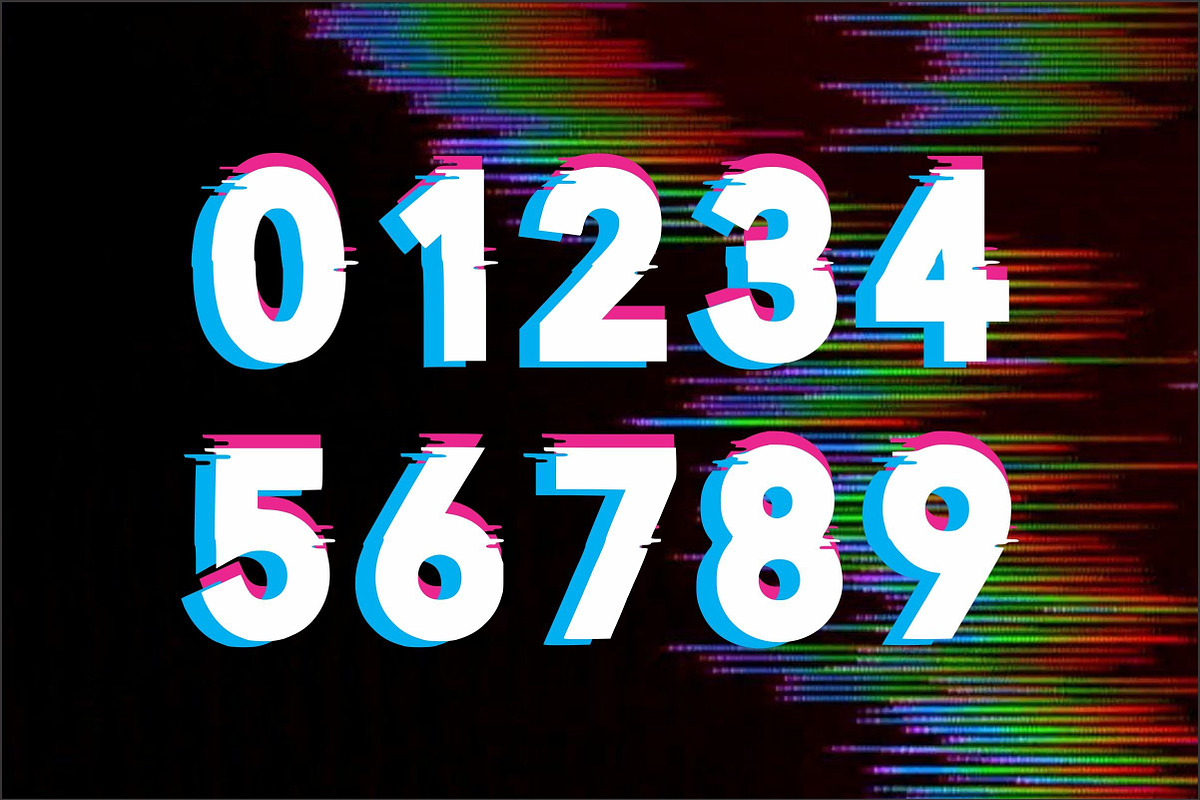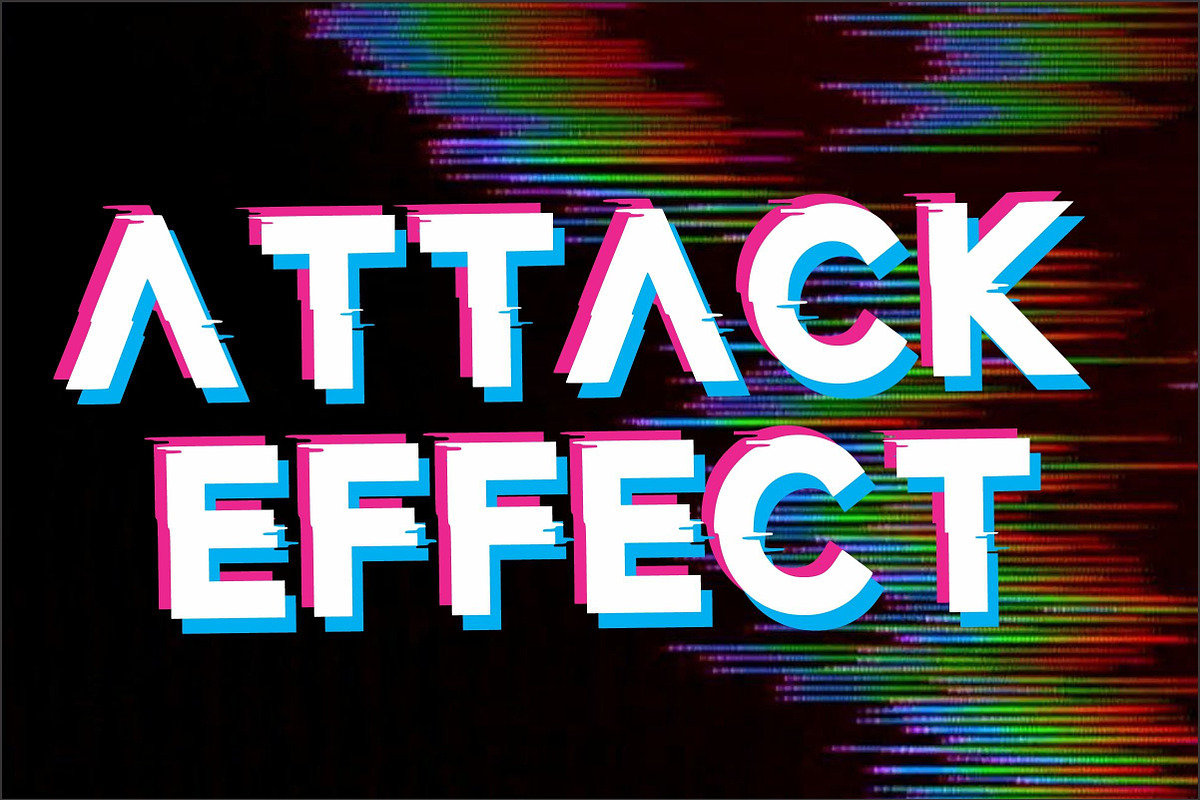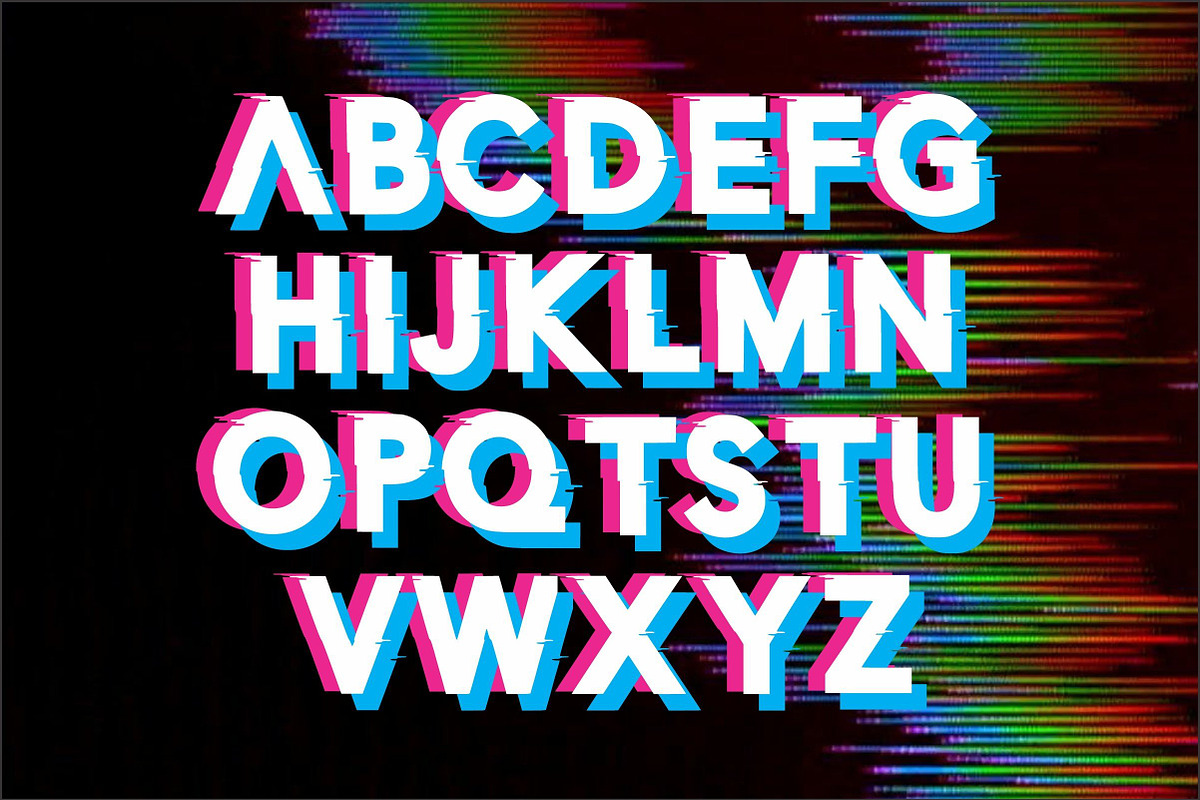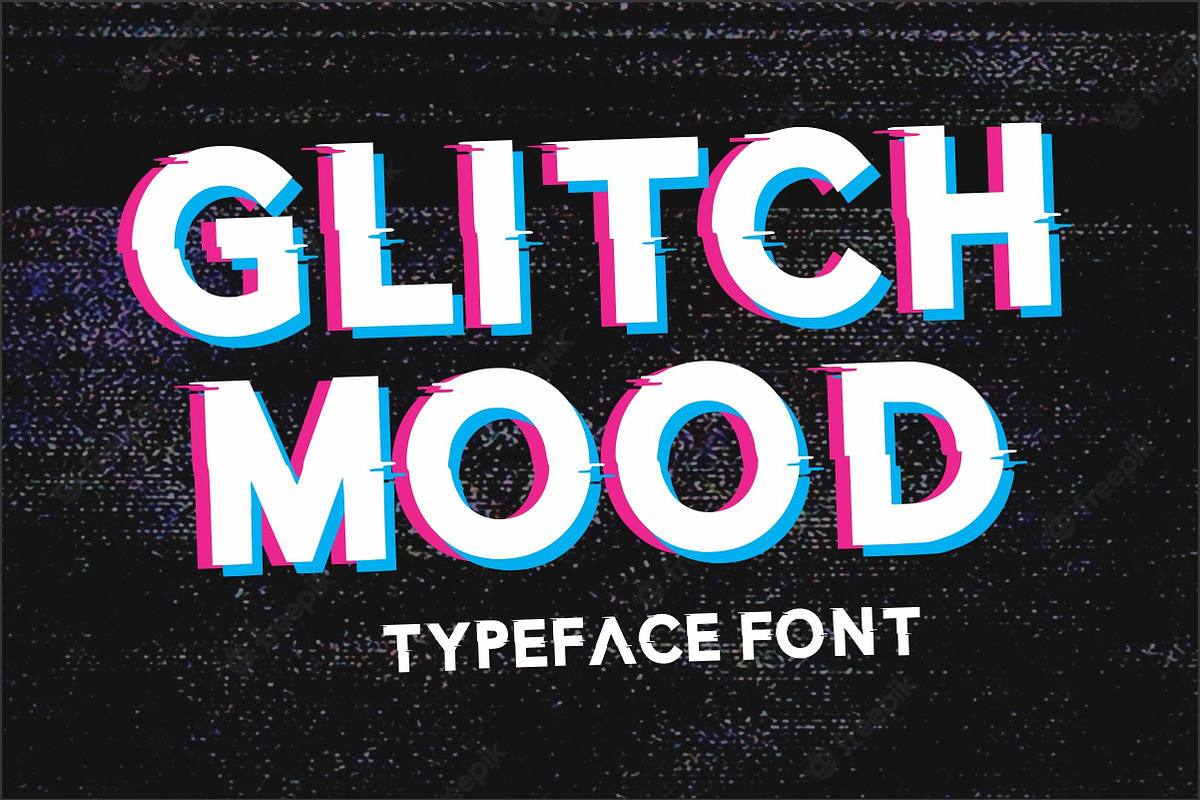
Glitch Mood
Glitch Mood is a fun and quirky display font that describes system errors. Add it confidently to your creative ideas and you will be impressed by the outcome generated!